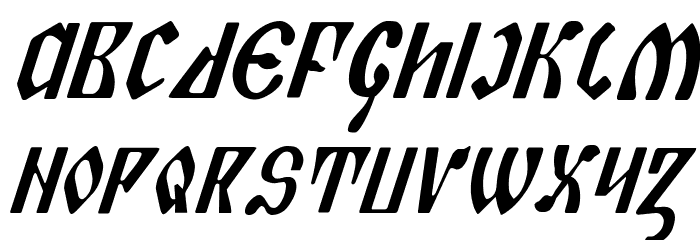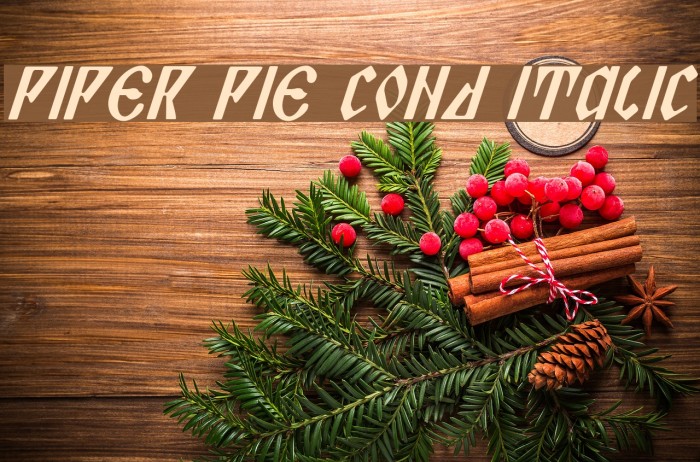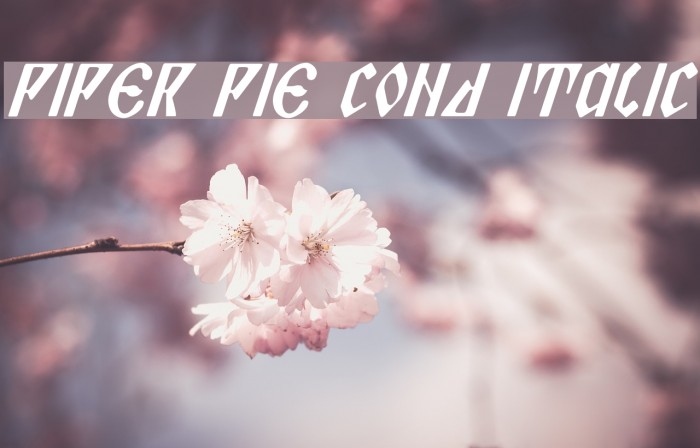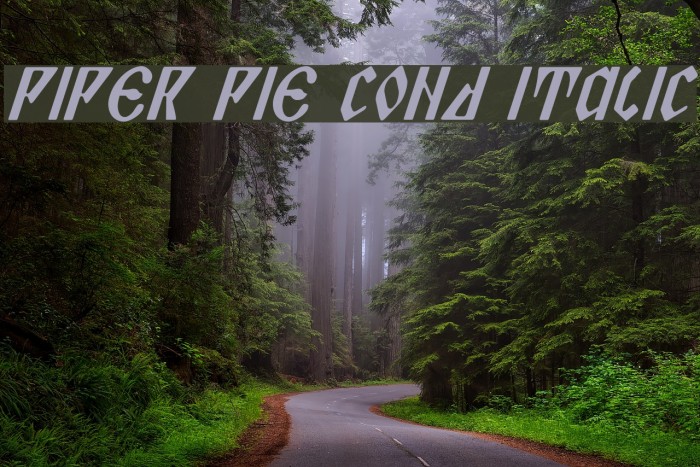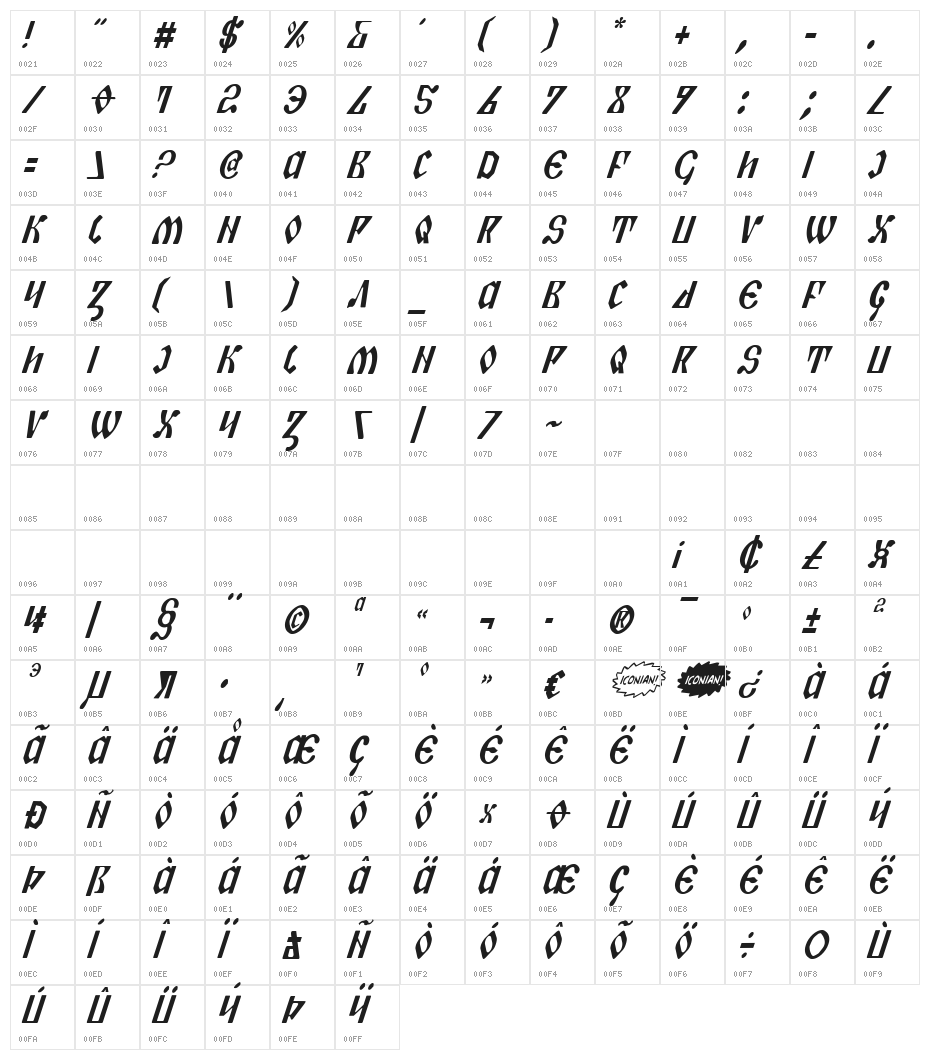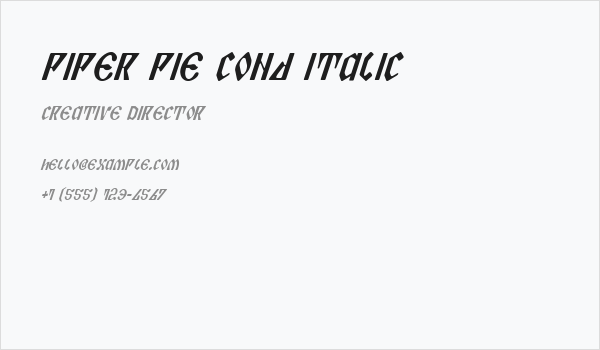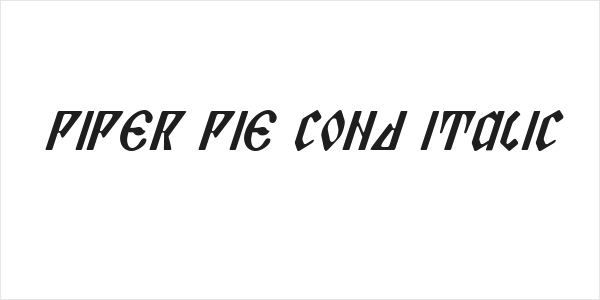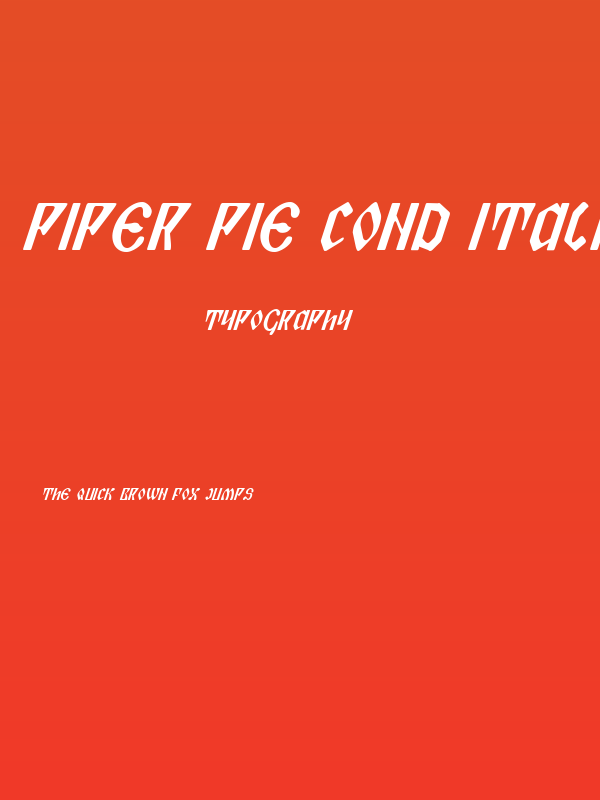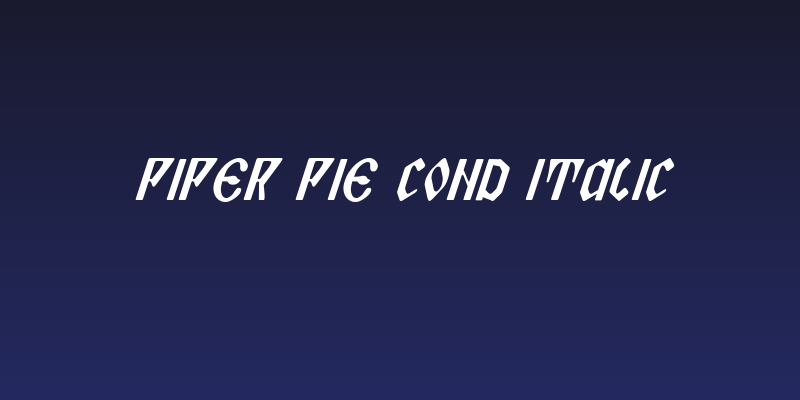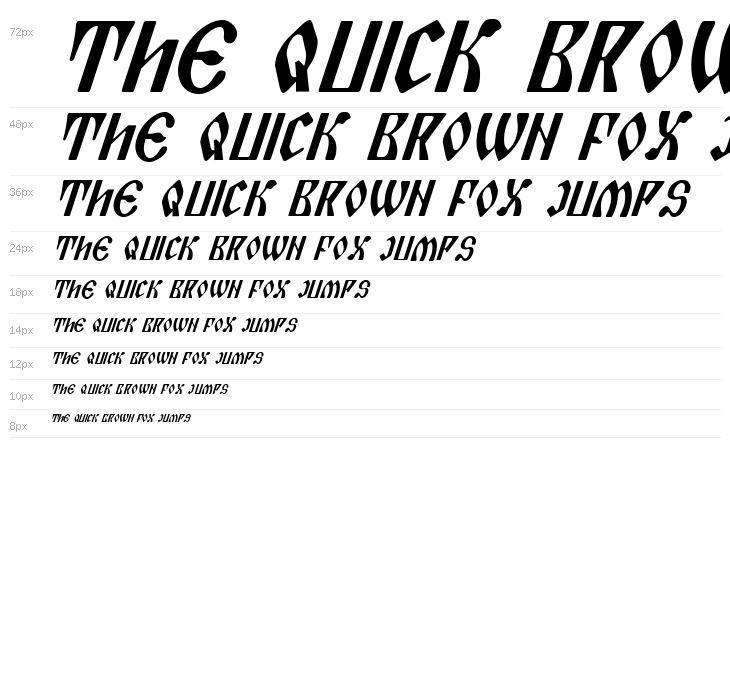
Piper Pie Cond Italic Font
This font features a bold and dynamic style with a condensed form and italic slant, giving it a sense of movement and energy. The characters are designed with sharp angles and a slight curvature, creating a unique blend of geometric and fluid elements. The uppercase and lowercase letters maintain a consistent style, with the uppercase being more pronounced and the lowercase offering a slightly softer appearance. The numerals are distinct and easy to read, while the special characters complement the overall aesthetic. This font's boldness and condensed width make it ideal for impactful designs.
A bold, condensed italic font with sharp angles and dynamic style.
- Proposed Projects: Suitable for branding, posters, headlines, and any project requiring a strong visual impact.
- Character Spacing: Tight